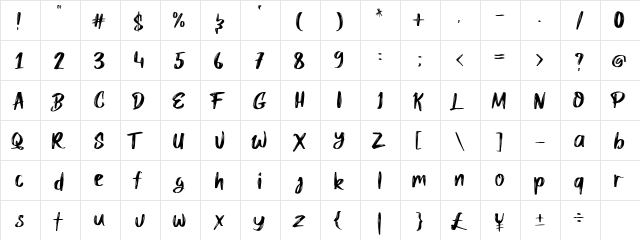
Mybread Regular
| Foundry | Degi Kurniawan |
| Designer | Degi Kurniawan |
Design Context for Mybread Typeface
Mybread is a composed and adaptable typeface that performs quietly and consistently across a wide range of design contexts.